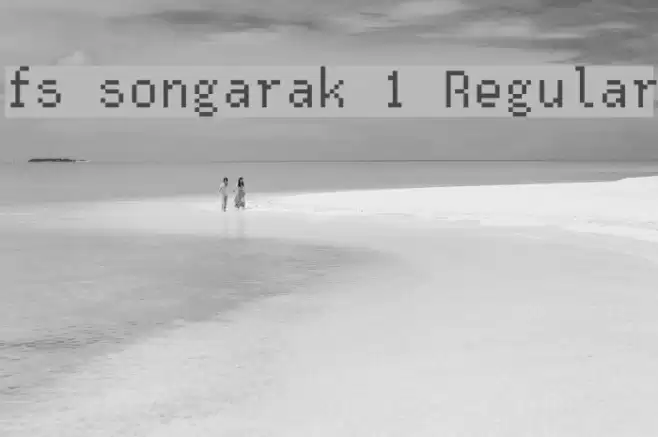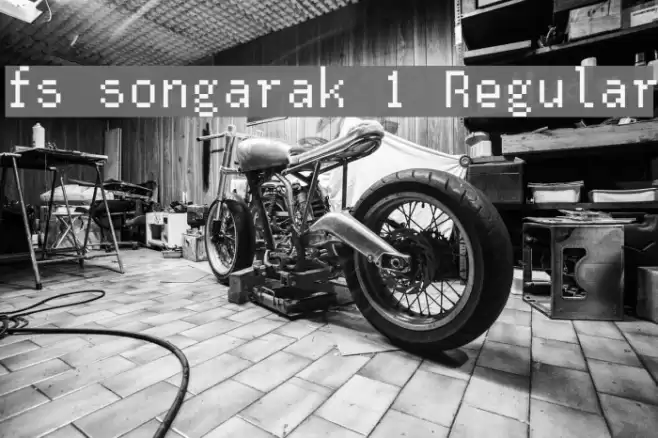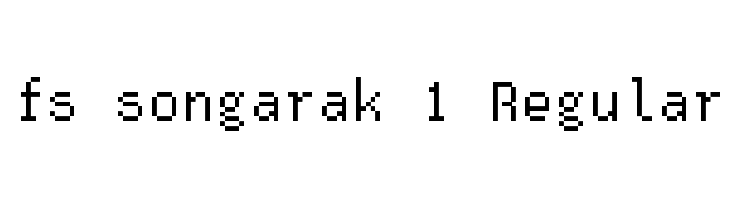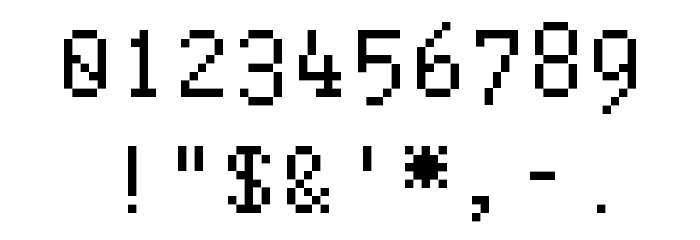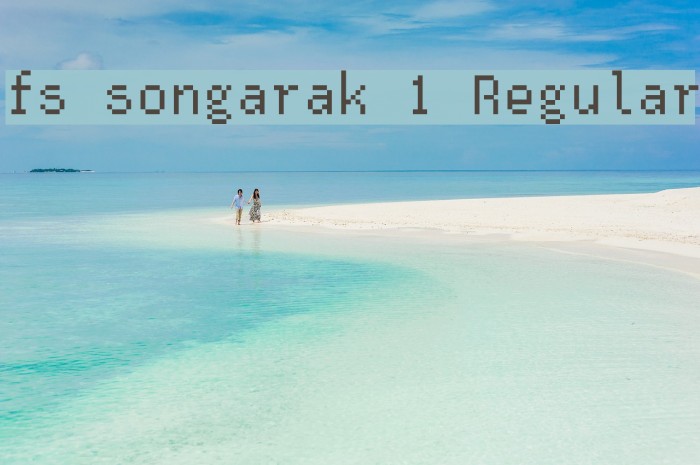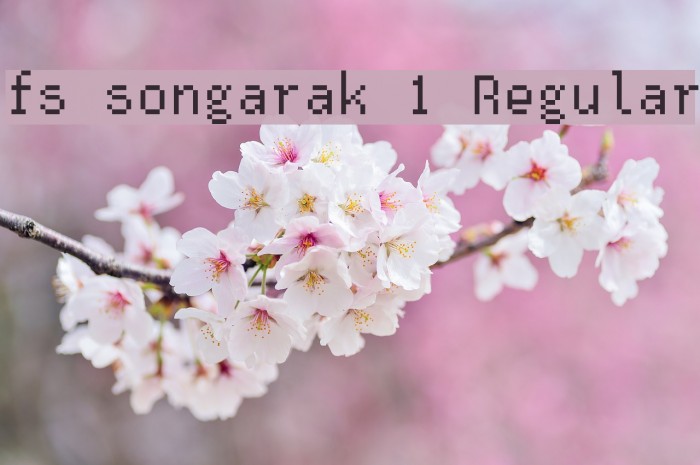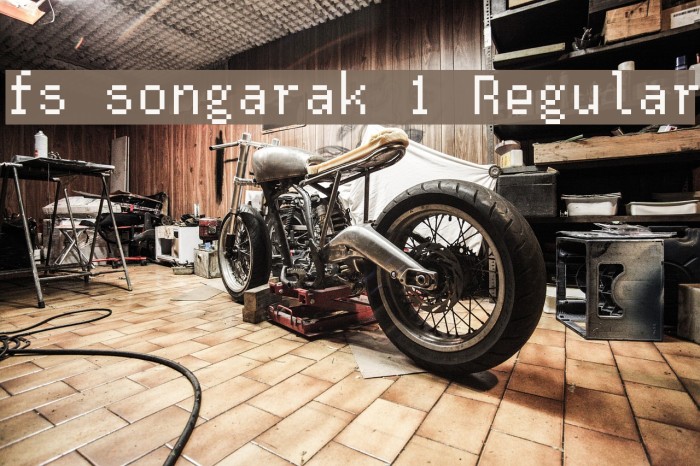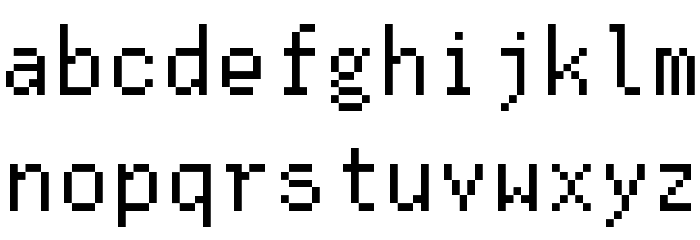
fs songarak 1 Regular Font
fs songarak 1 Regular Description
This font features a pixelated, grid-like structure reminiscent of early digital displays and retro gaming aesthetics. Each character is composed of small square blocks, giving it a distinctly digital and mechanical appearance. The uppercase and lowercase letters maintain a consistent height and width, contributing to a uniform and monospaced feel. The numerals and special characters follow the same design principles, ensuring a cohesive look across all glyphs. This style is particularly effective for evoking nostalgia or conveying a technological theme.
A pixelated, monospaced font with a retro digital aesthetic from Uncategorized fonts.
- Proposed Projects: Ideal for retro video game designs, digital art projects, tech-themed posters, and any creative work that requires a nostalgic digital touch.
- Overall Style: Retro, Digital
- Use Case: Logos, Headlines, Digital displays